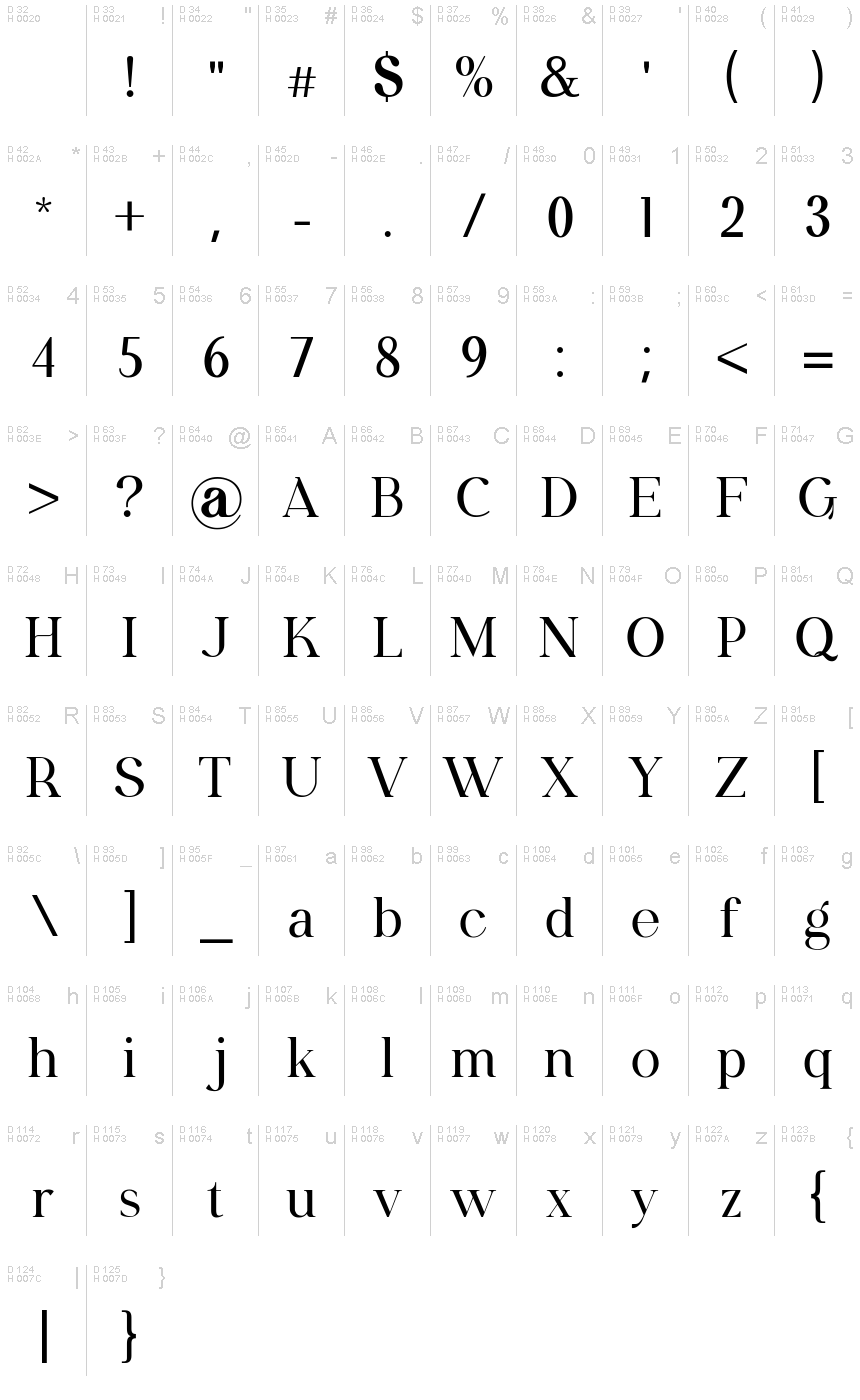
WalkieValkyrie Regular
Walkie Valkyrie, designed by UI Creative, is a striking serif font that exudes elegance and sophistication. With its pronounced serifs and graceful curves, it commands attention while maintaining an air of refined classicism. The balance between thick and thin strokes adds a dynamic rhythm to the text, making it perfect for creating visually compelling headlines and titles.
This font's unique character makes it ideal for luxury branding, editorial design, and high-end product packaging. Its distinctiveness ensures that any message conveyed through Walkie Valkyrie will be both memorable and impactful. Whether used in print or digital formats, this font brings a touch of timeless elegance to any project.